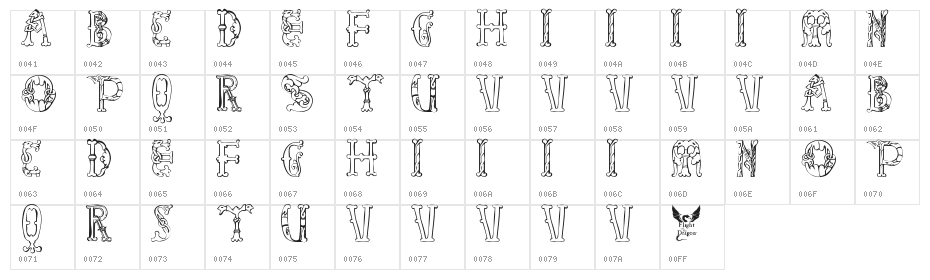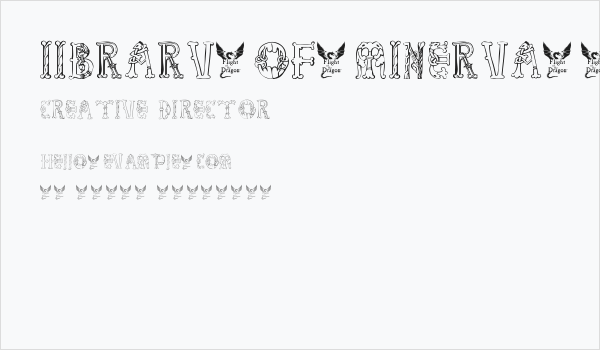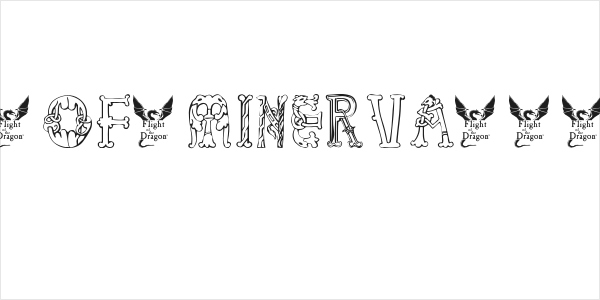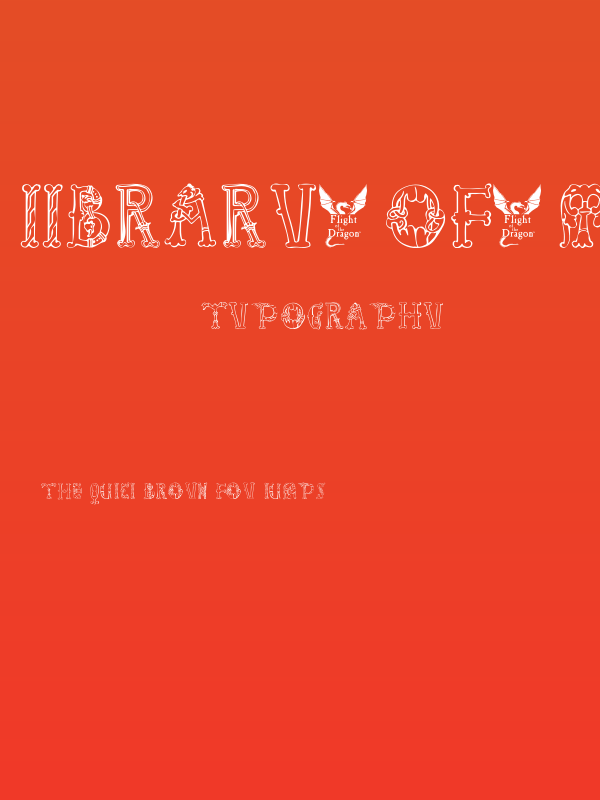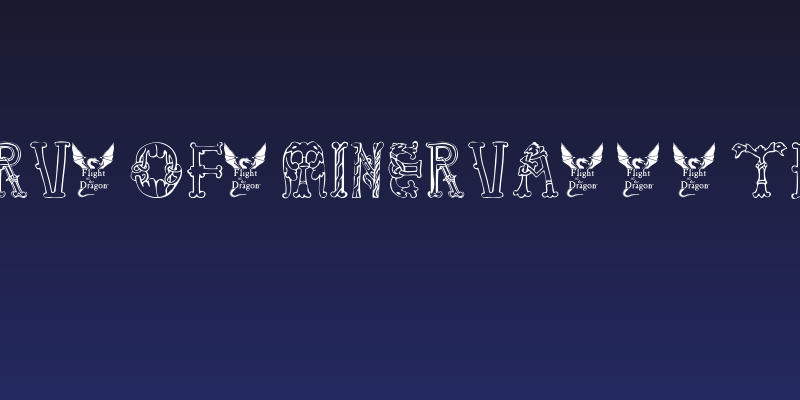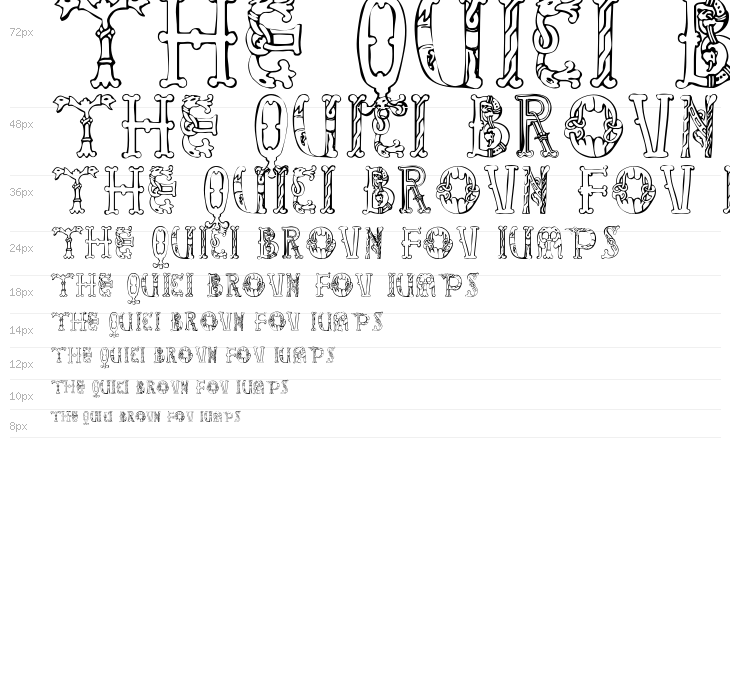
This font features an ornate and decorative style, reminiscent of medieval script with intricate detailing and embellishments. The uppercase letters are highly stylized, with elaborate flourishes and unique shapes that give each character a distinct personality. The font's design incorporates elements that suggest a historical or fantasy theme, making it ideal for projects that require a touch of elegance and sophistication. The characters are bold and commanding, with a strong presence that draws attention. This font is particularly suitable for use in titles, logos, or any design that seeks to evoke a sense of grandeur and tradition.
| Proposed Projects | Ideal for fantasy book covers, historical event posters, themed invitations, and logo design. |